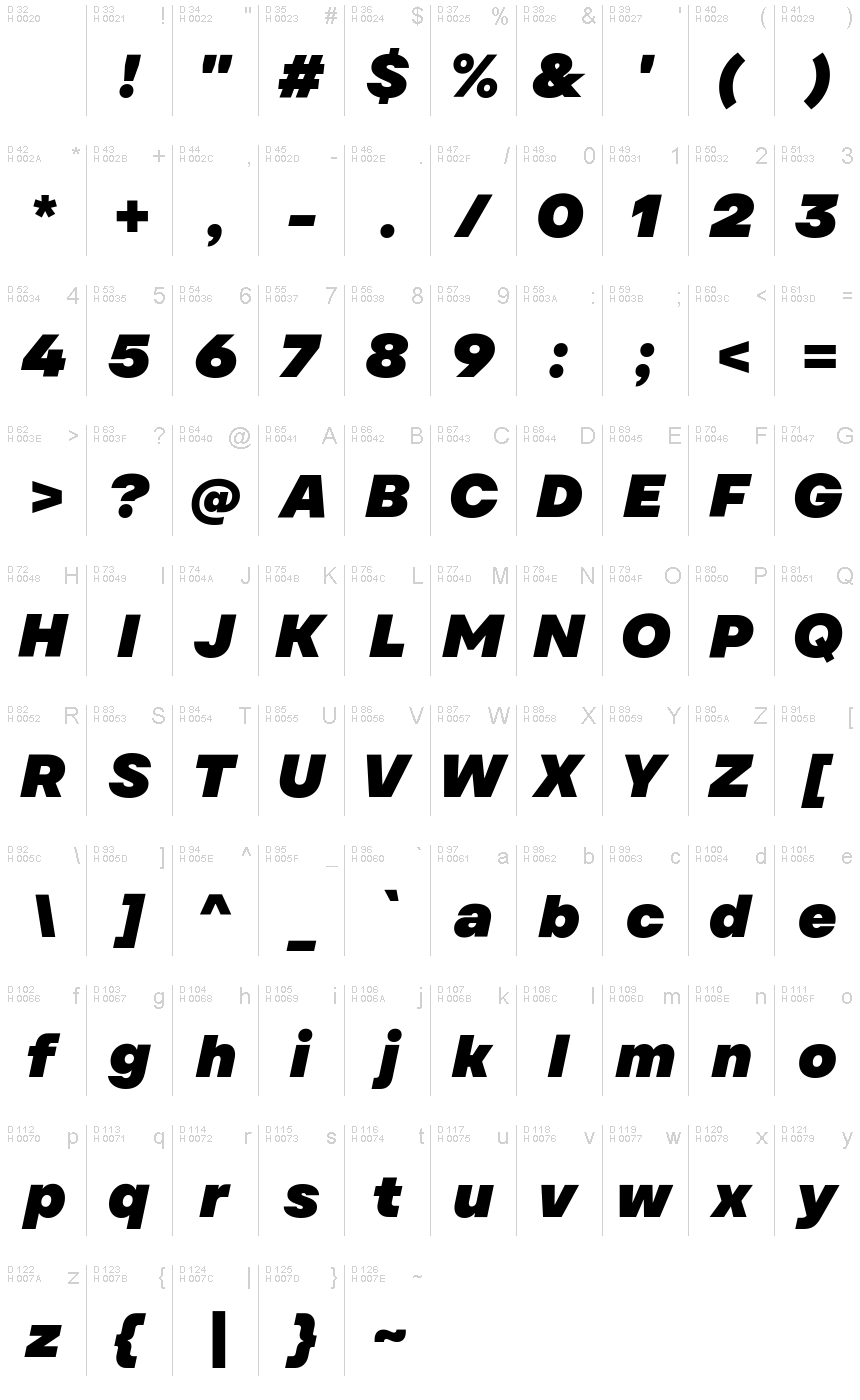
TT Firs Text Trial ExtraBlack Italic
TT Firs Text ExtraBlack Italic font, designed by TypeType Foundry, is a striking example of modern sans serif design. Its bold presence commands attention, while the italic slant adds a dynamic flair that breathes life into any text. This font's substantial weight exudes confidence, making it perfect for headlines or branding that aims to make a lasting impression.
Visually appealing yet versatile, TT Firs Text ExtraBlack Italic can enhance various design contexts—from eye-catching posters to elegant invitations. Its distinct character creates an aura of contemporary sophistication, seamlessly blending strength with style. Whether aiming to convey authority or creativity, this font stands out as an exceptional choice for any project that seeks to captivate and inspire.